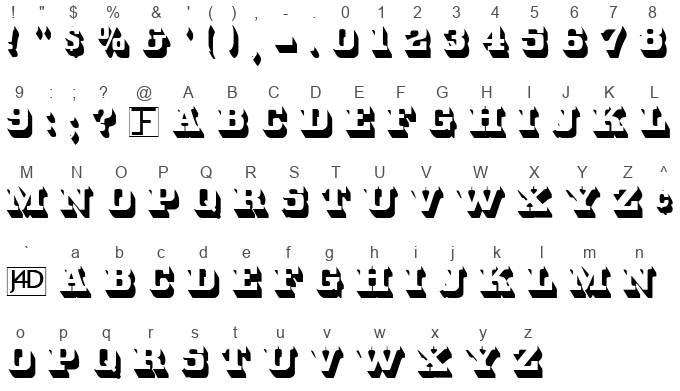
The font White Bold, created by J. Fordyce, is a remarkable typographic achievement that stands out for its distinctive characteristics and versatility. It is a font that carries a bold personality, as suggested by its name, making it an excellent choice for projects that require a strong visual impact. White Bold embodies a modern and dynamic aesthetic, making it particularly suitable for branding, advertising, and digital media that aim to capture attention and make a statement.
White Bold's design features generous letterforms with solid strokes and precise curves, leading to a readability that performs well even in less-than-ideal conditions. The characters in White Bold are designed with a perfect balance between structure and whitespace, allowing each letter to breathe and thus enhancing the overall clarity of the text. This strategic use of whitespace within and around the characters contributes to a clean and uncluttered look, ensuring that the font remains effective and captivating, even when used in dense paragraphs or complex layouts.
J. Fordyce's attention to detail is evident in the way White Bold manages to maintain a consistent and harmonious appearance across various weights and styles, should the font family include such variations. Each character in the White Bold font is crafted to contribute to a cohesive visual language, making it easier for designers to use the font across a wide range of applications without losing the identity and impact of their design. Whether used for headlines that demand attention or for body text that requires legibility and comfort, White Bold by J. Fordyce provides designers with a powerful tool to convey messages with confidence and style.
White Bold